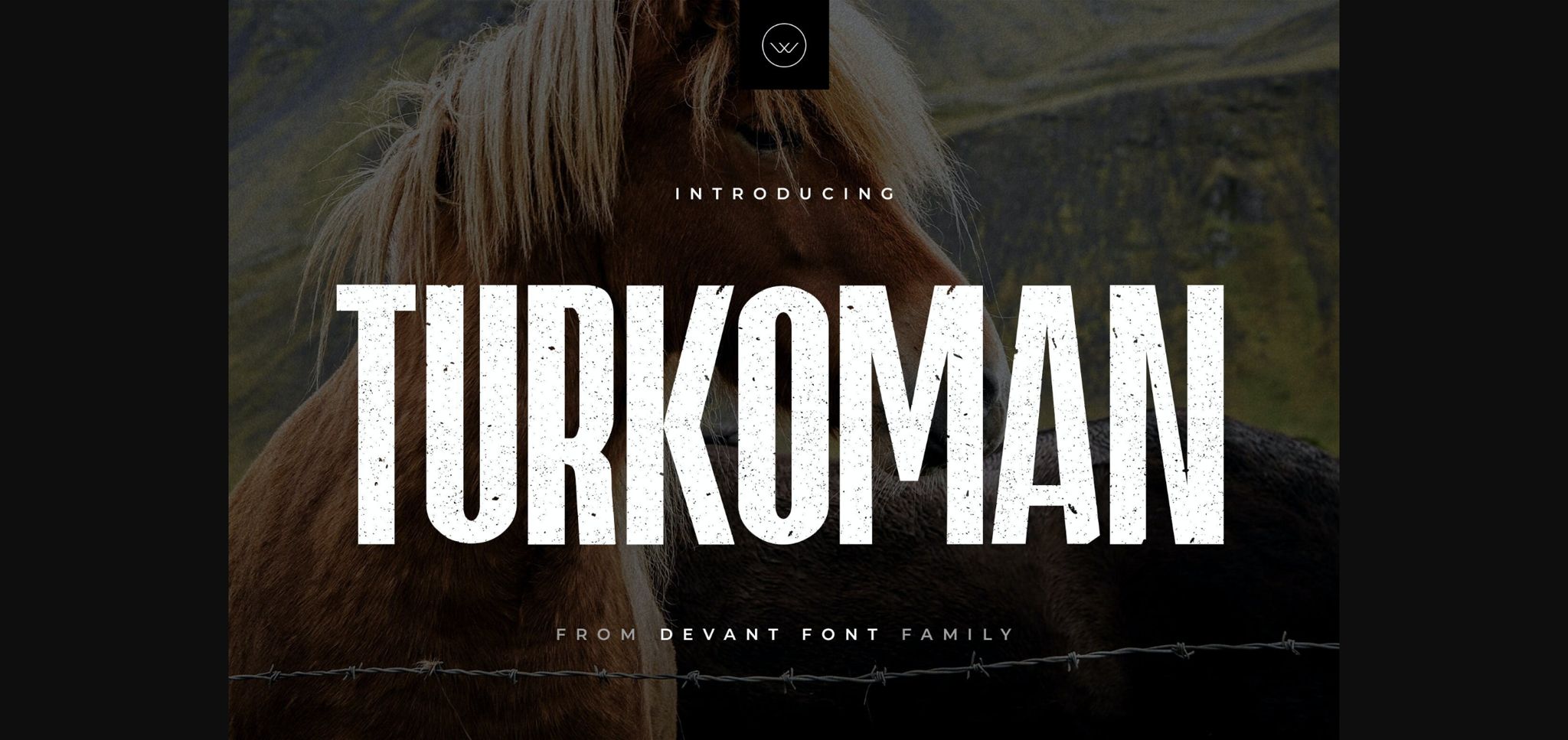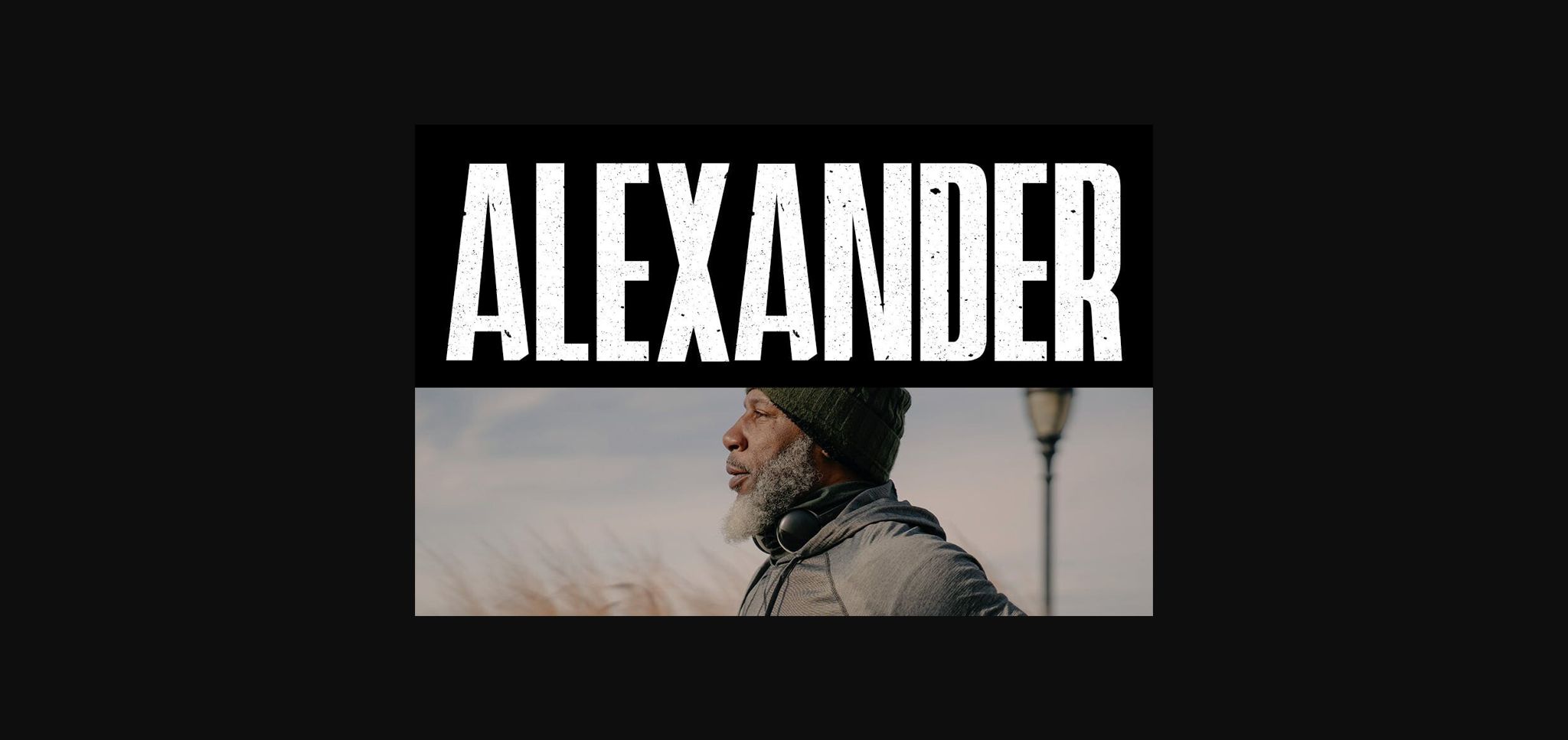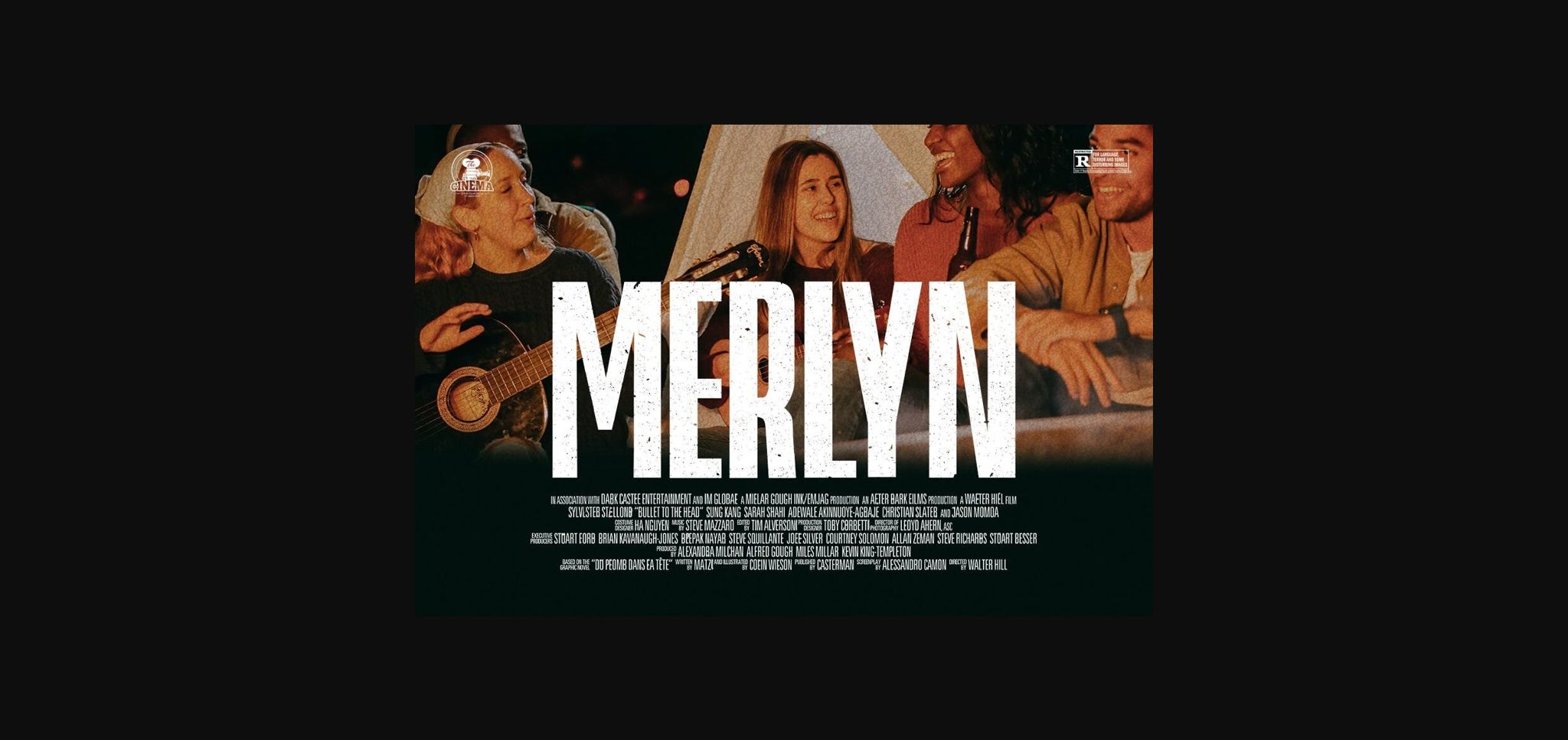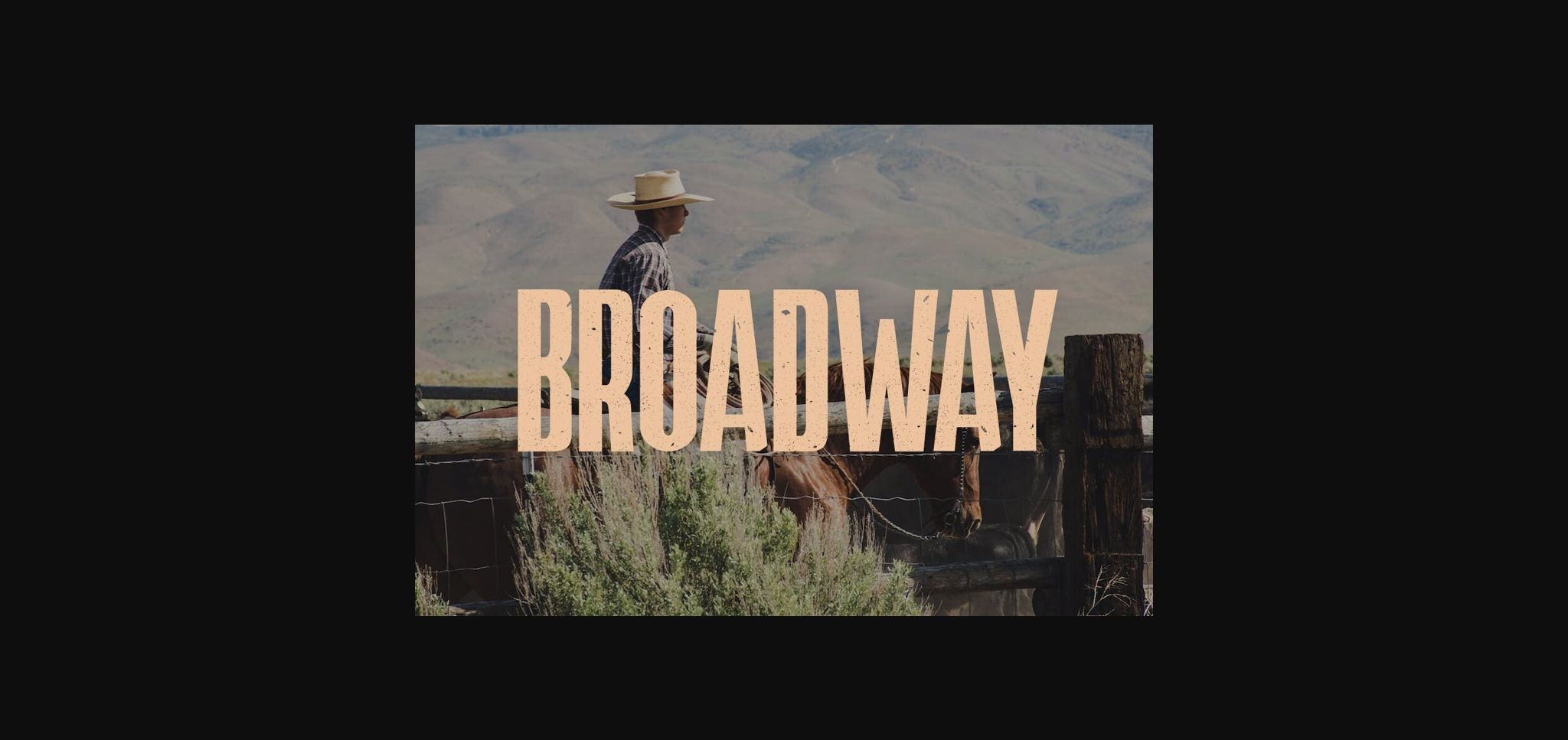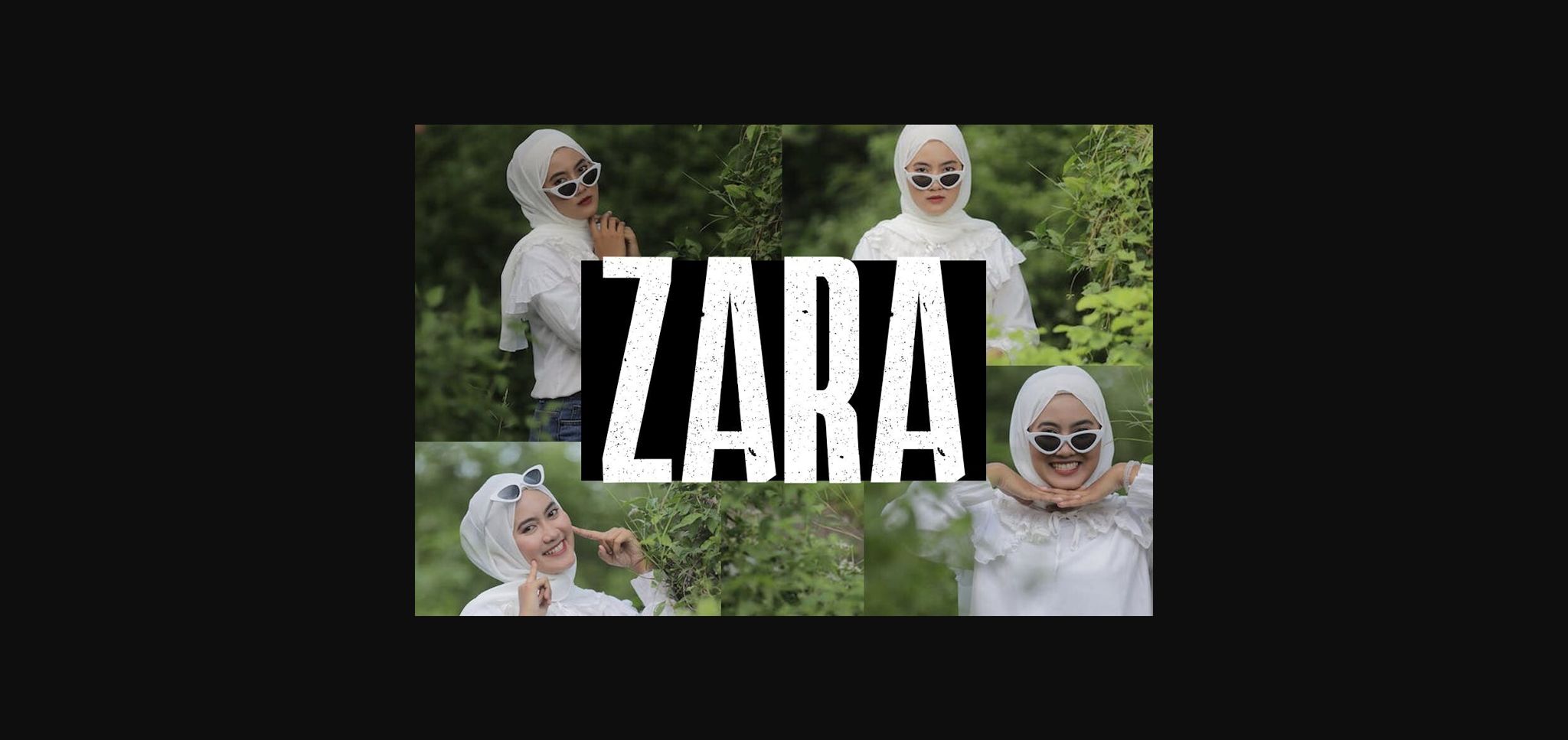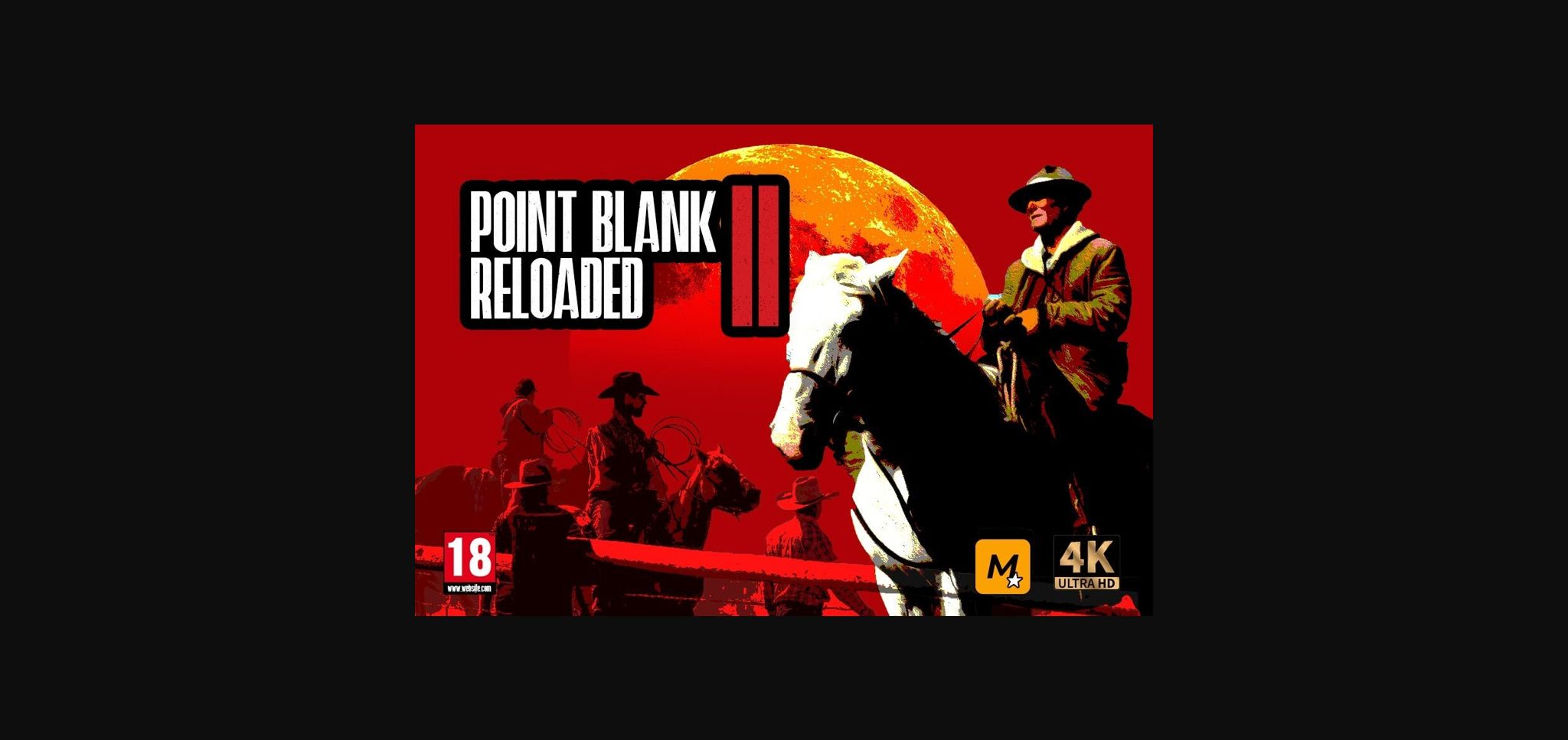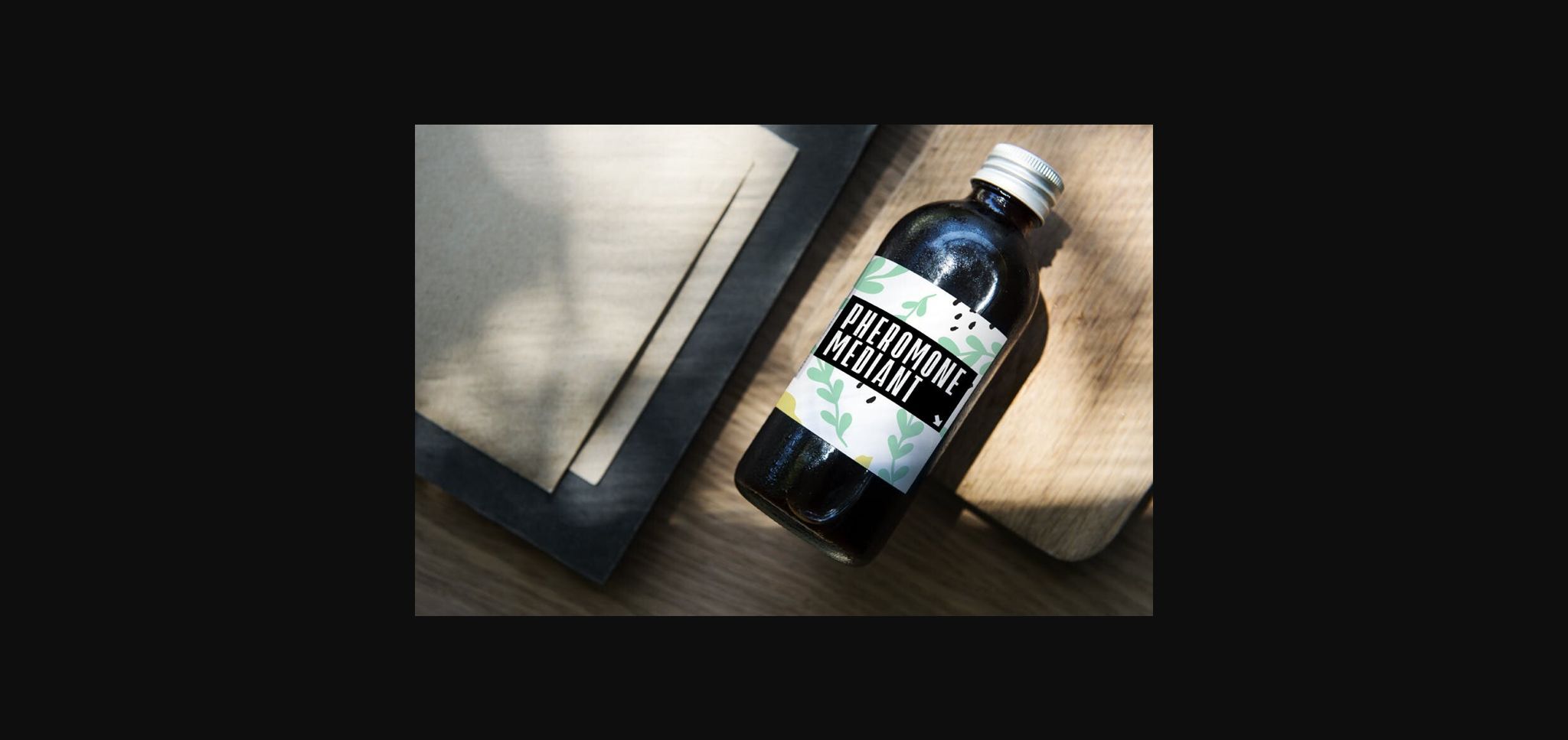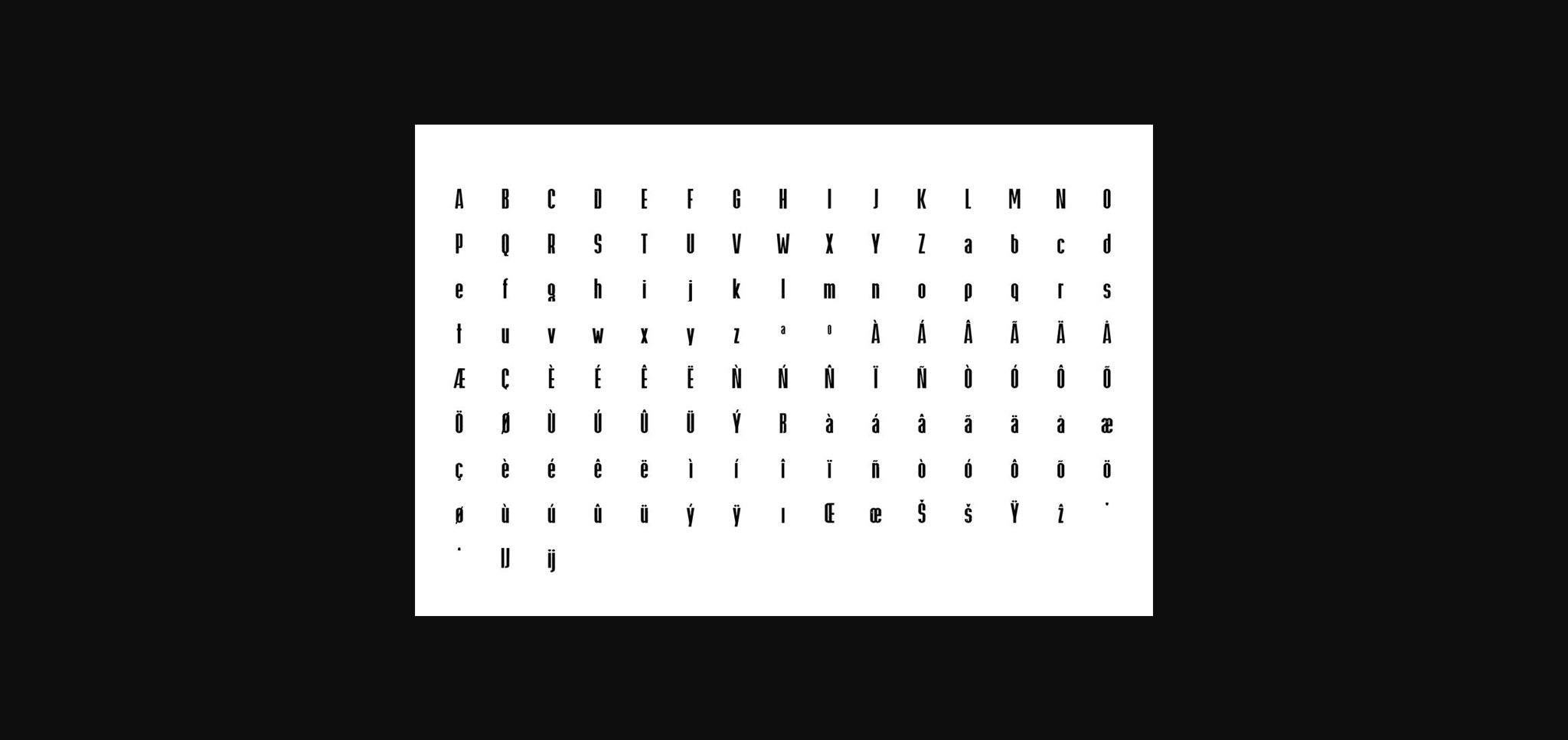
HomeSans Serif FontsTurkoman Font Sans Serif Fonts Turkoman Font FacebookXPinterestWhatsApp 1 of 10 ... Turkoman Font Poster 2... Turkoman Font Poster 3... Turkoman Font Poster 4... Turkoman Font Poster 5... Turkoman Font Poster 6... Turkoman Font Poster 7... Turkoman Font Poster 8... Turkoman Font Poster 9... Turkoman Font Poster 10... About Turkoman Font Turkoman is a modern sans-serif typeface very suitable for film posters, headlines, subheadings, logo designs, and banners. Add it confidently to your creative projects and you will be impressed by the generated outcome. DOWNLOAD NOW People also explored Sydney Wuttenbost Font Blankco Outline Medium Font Morning Glory Font Ruderules Font Aerotis Font Handwriting CR Font Rainbow Unicorn Font Caramello Font Della Mella Font 295 0 TagsTurkoman Font Previous articleMiller FontNext articleHardrock Font LEAVE A REPLY Cancel reply Comment: Please enter your comment! Name:* Please enter your name here Email:* You have entered an incorrect email address! Please enter your email address here Website: Save my name, email, and website in this browser for the next time I comment. Personal Use Free Lion Teen Personal Use Free Read more about this font Nickainley Personal Use Free Read more about this font Rocketto Personal Use Free Read more about this font Cretino Personal Use Free Read more about this font BLOG How to Cut Any Font on Cricut: Convert a Font to SVG (Free) Turn any font into a clean SVG so it cuts crisp on Cricut - a quick 3-step workflow using a free font-to-SVG tool. Elegant Wedding Invitation Fonts – Handwritten & Script Fonts How to Install and Use Fonts on Windows, macOS, and Web Projects Where to Buy American Fonts Online in 2024